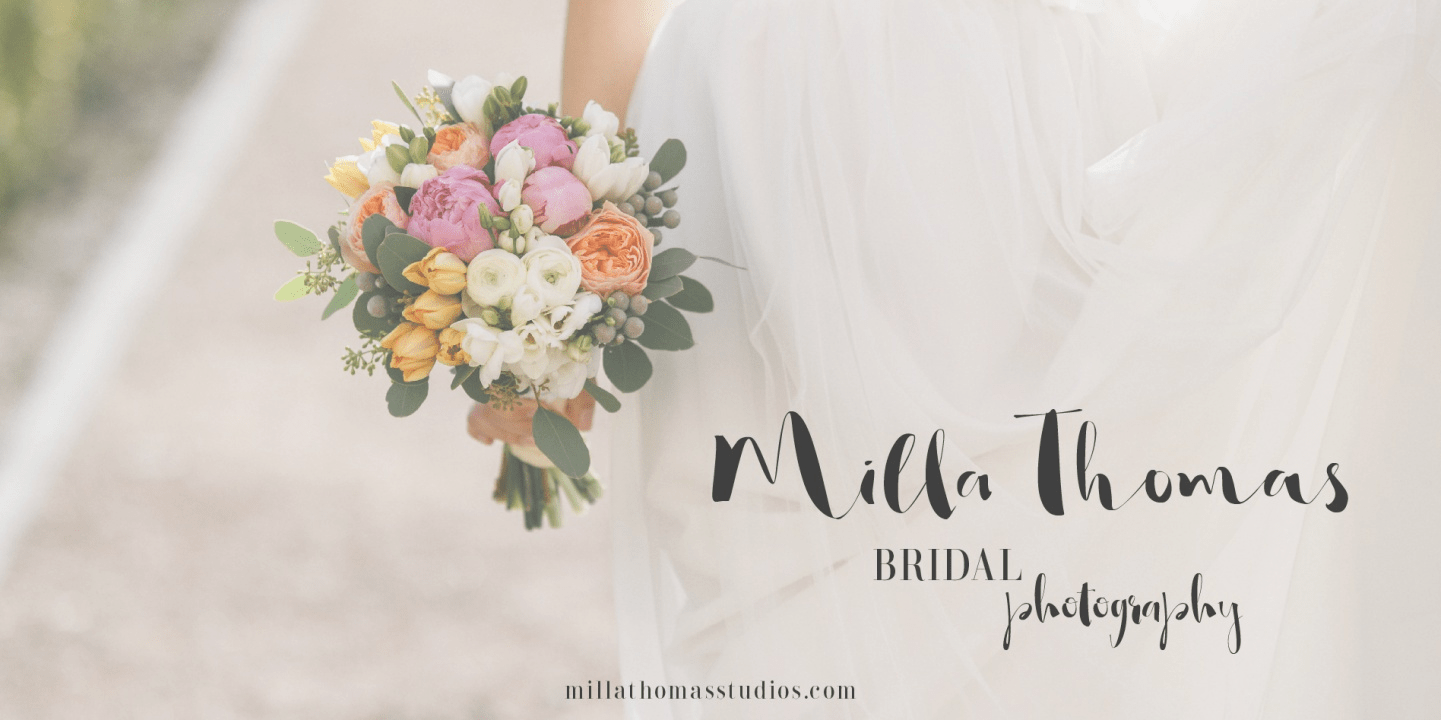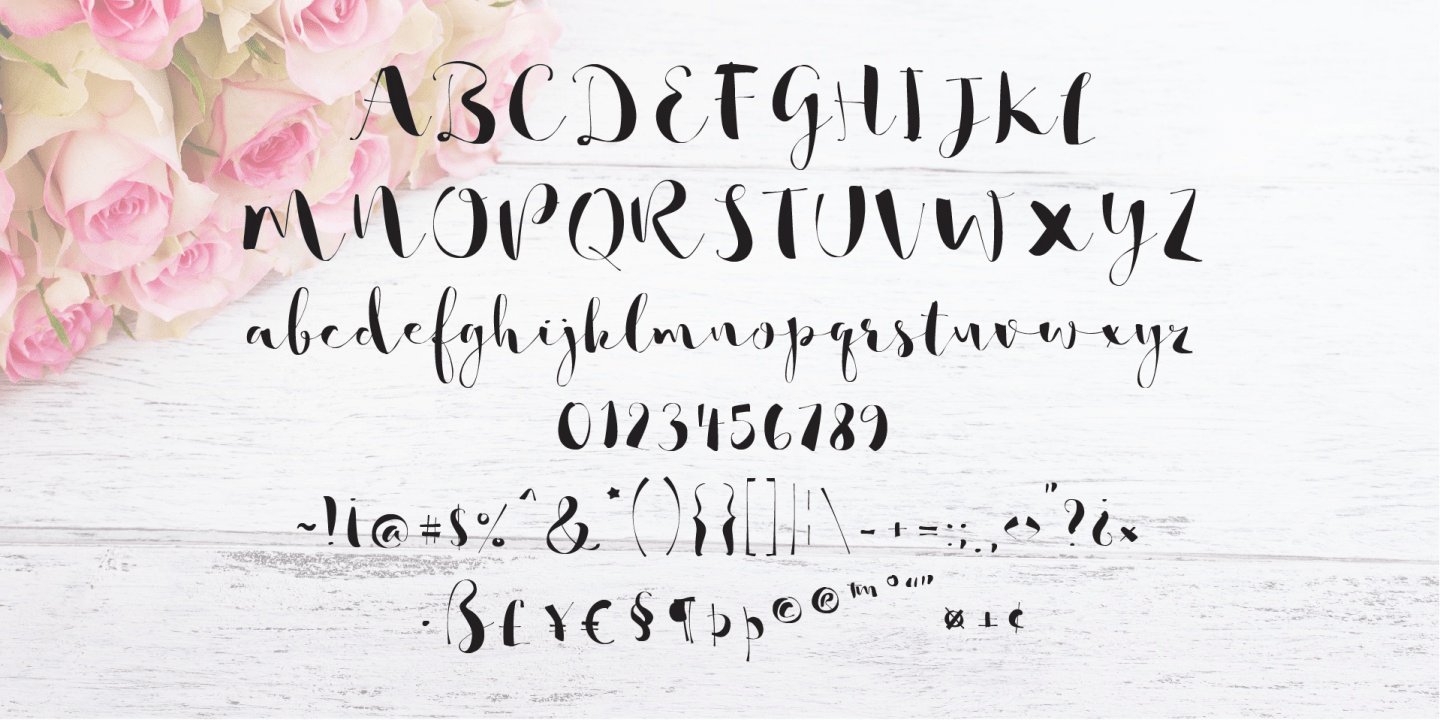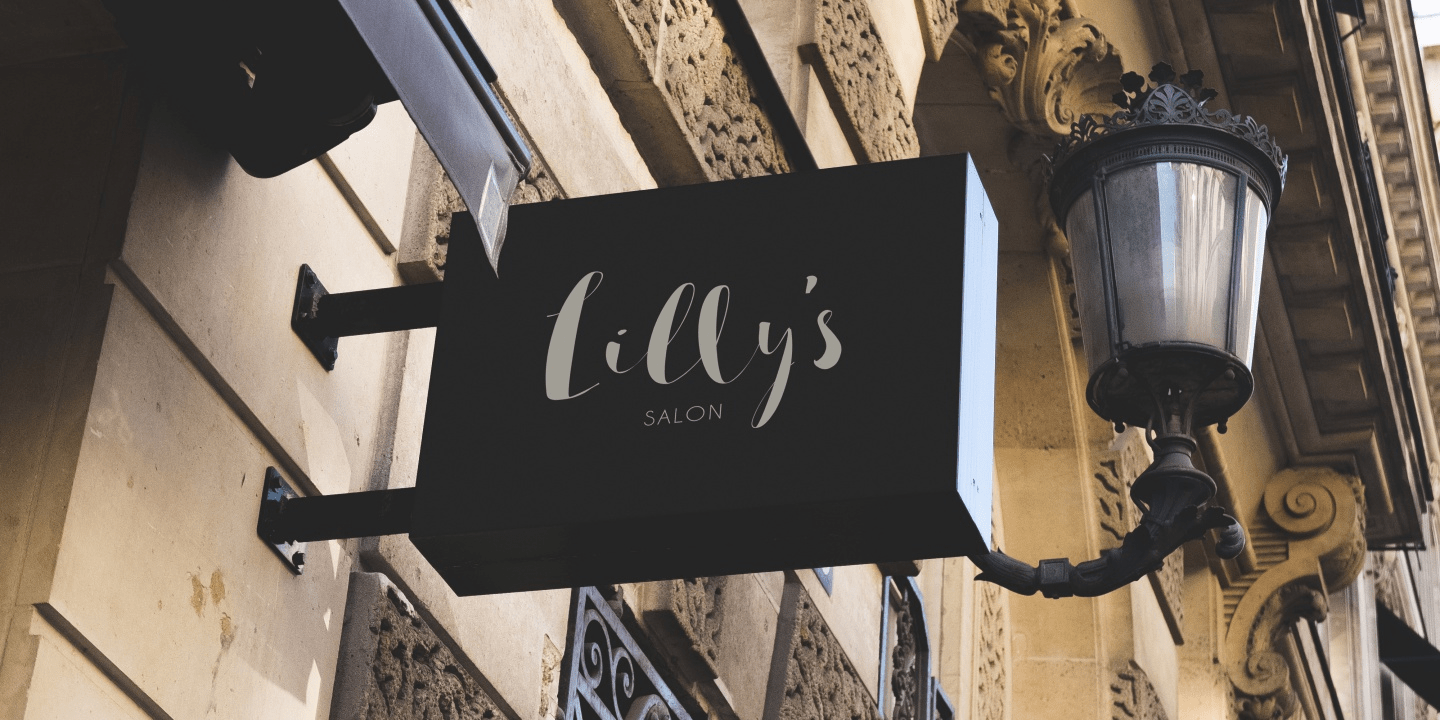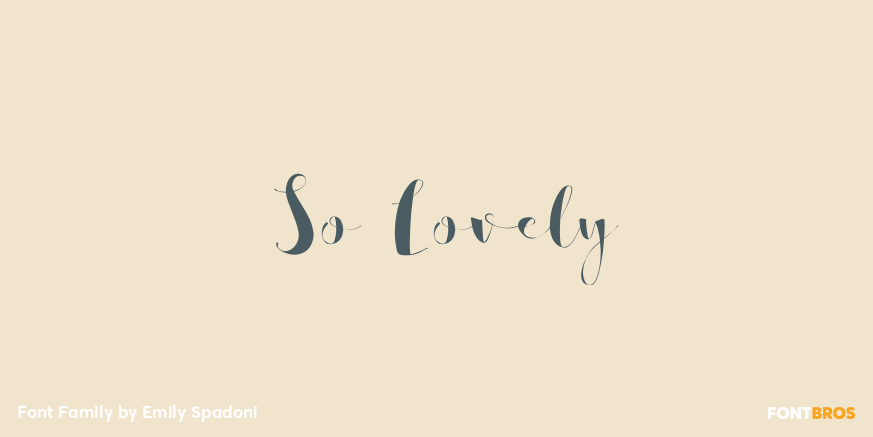
So Lovely
Introducing So Lovely Script! An imperfect hand-inked handwriting script. The combination of bold curves with super-fine lines trailing as if your hand just barely lifted from the paper. So Lovely doesn't miss a single detail, alternate characters are hastily cut short as a quickly moving hand ordinarily would.
You'll have so much fun creating your own authentic hand-lettered text styles. The possibilities are endless.
3 added files of additional alternate glyphs, I've even pre-made many additional common letter combinations for you, and even the multi-lingual glyphs are all decorated.
4 Styles Included
Regular
Combo 1
Combo 2
Alt
The So Lovely font family includes 319 glyphs.